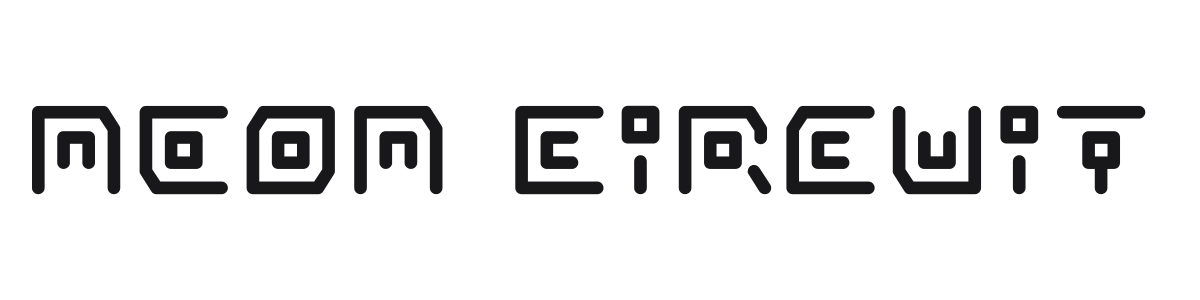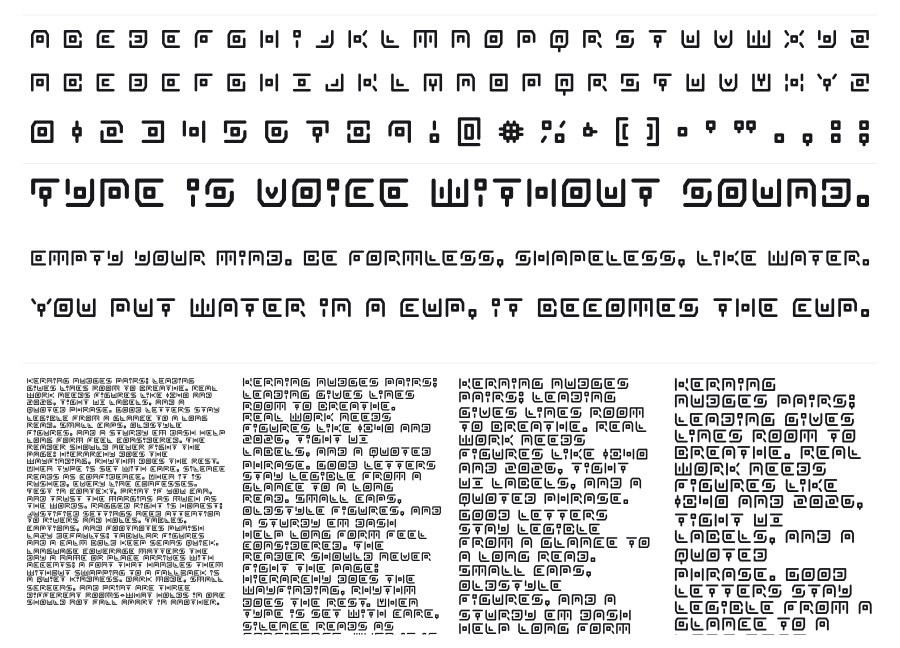
Neon Circuit
Neon Circuit is a square, modular display font where each character is built from uniform-weight strokes within box-like enclosures that mimic circuit board traces or LCD segments. The rounded corners soften what could be a harsh grid construction, giving it a retro-futuristic energy that lands somewhere between 1980s arcade and modern cyberpunk. It comes in 19 variants including outline, 3D, gradient, and italic cuts.